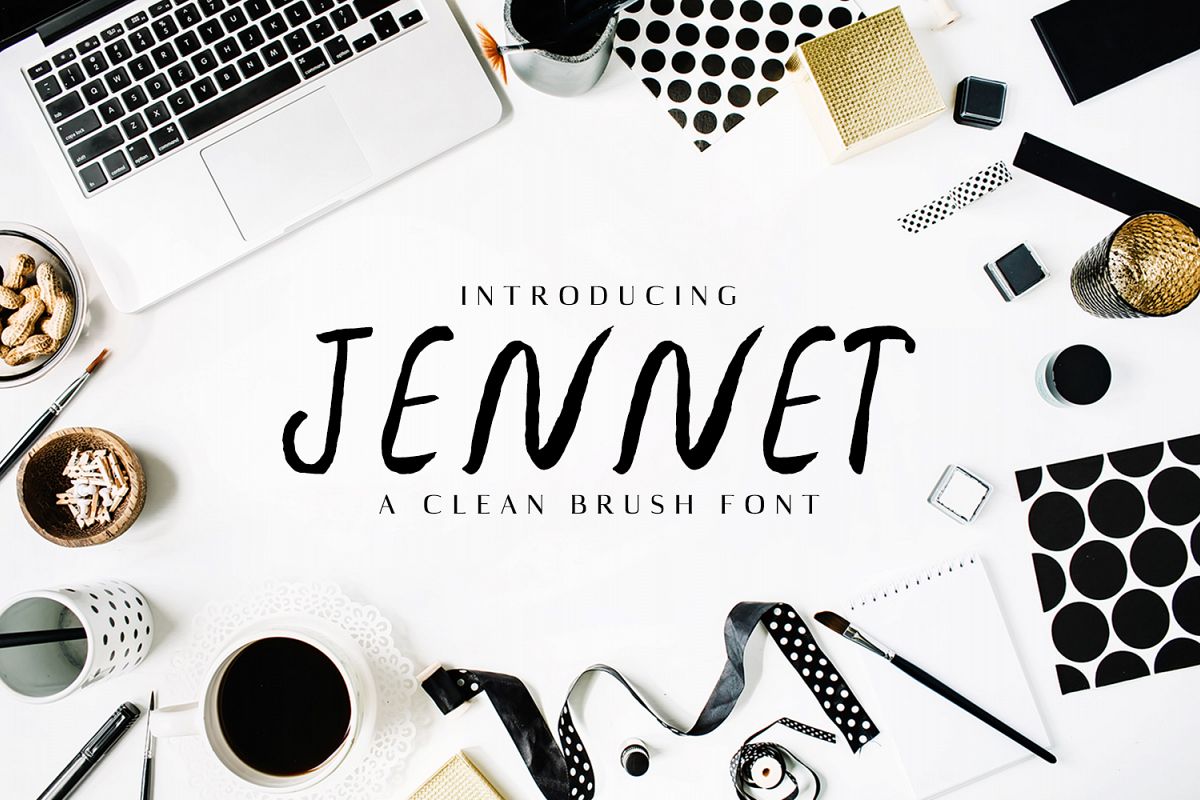
Jennet Brush Font Family
Jennet-Regular
Jennet-Italic
Jennet-Outline
Jannet Script Typeface is a clean & classy beautiful handwritten brush style font that contains 3 weights, it is perfect for creating authentic hand-lettered text quickly & easily.It looks impressive for branding, websites, clean designs, logos, headlines, banners and templates etc. It is in uppercase style only.Included Features:
• Regular, Italic and Outline Weights
• Extras: Uppercase Letters and Numbers